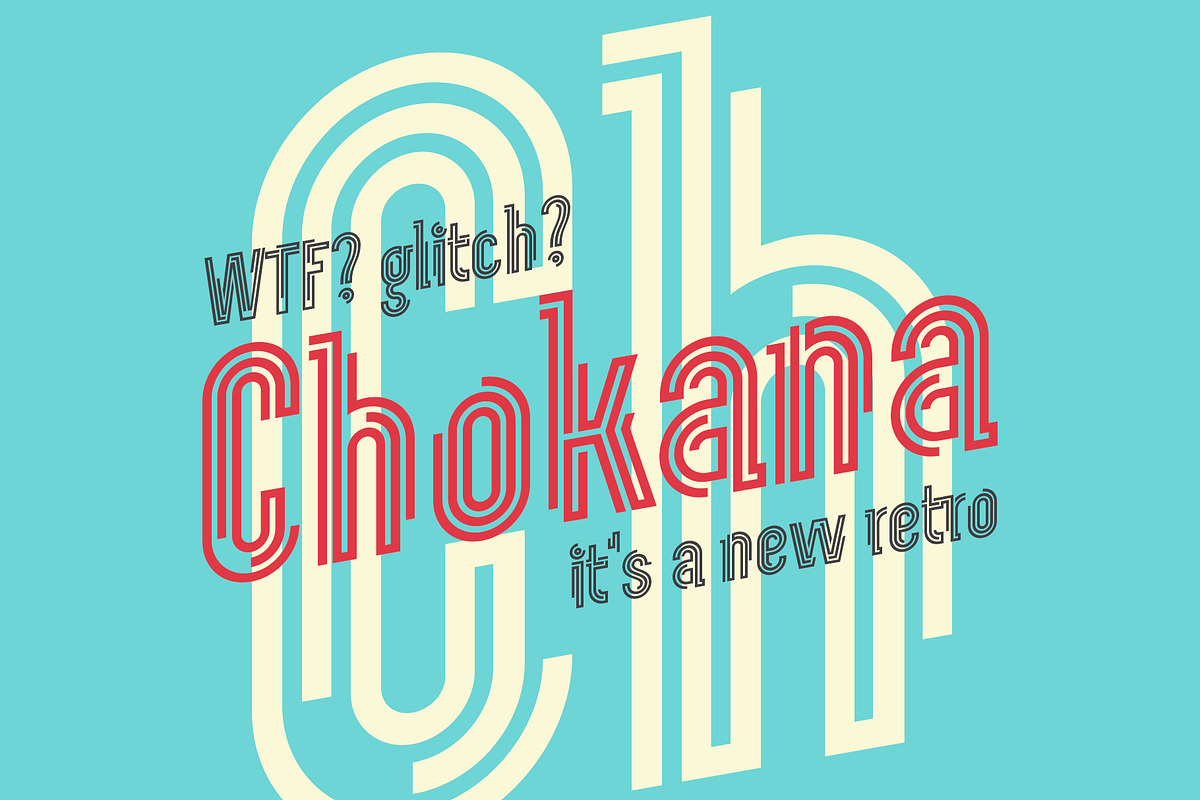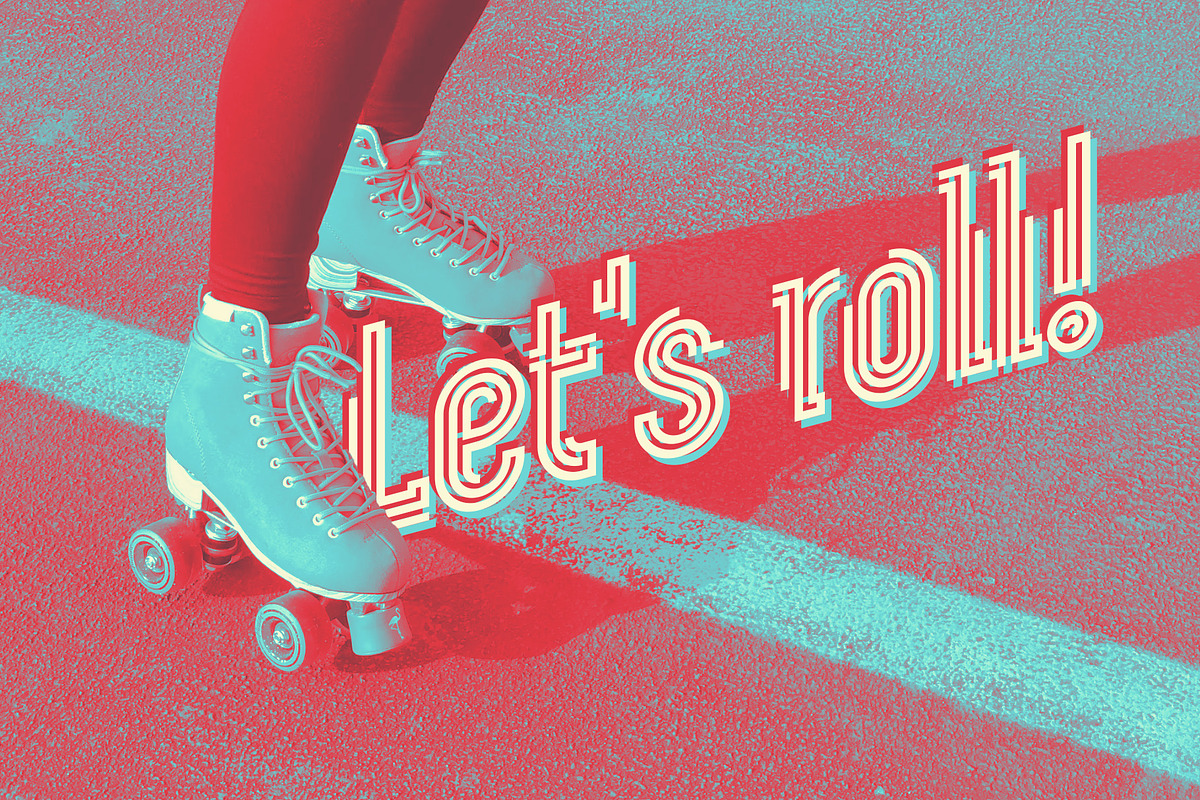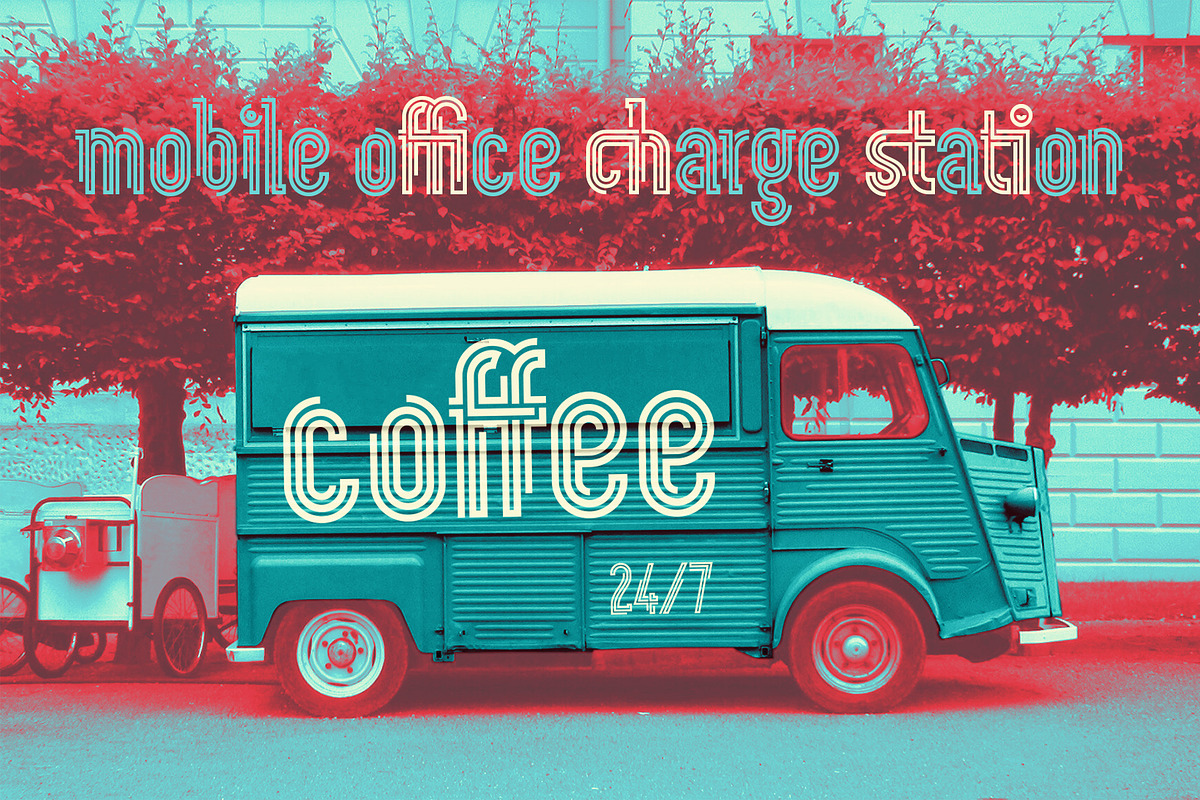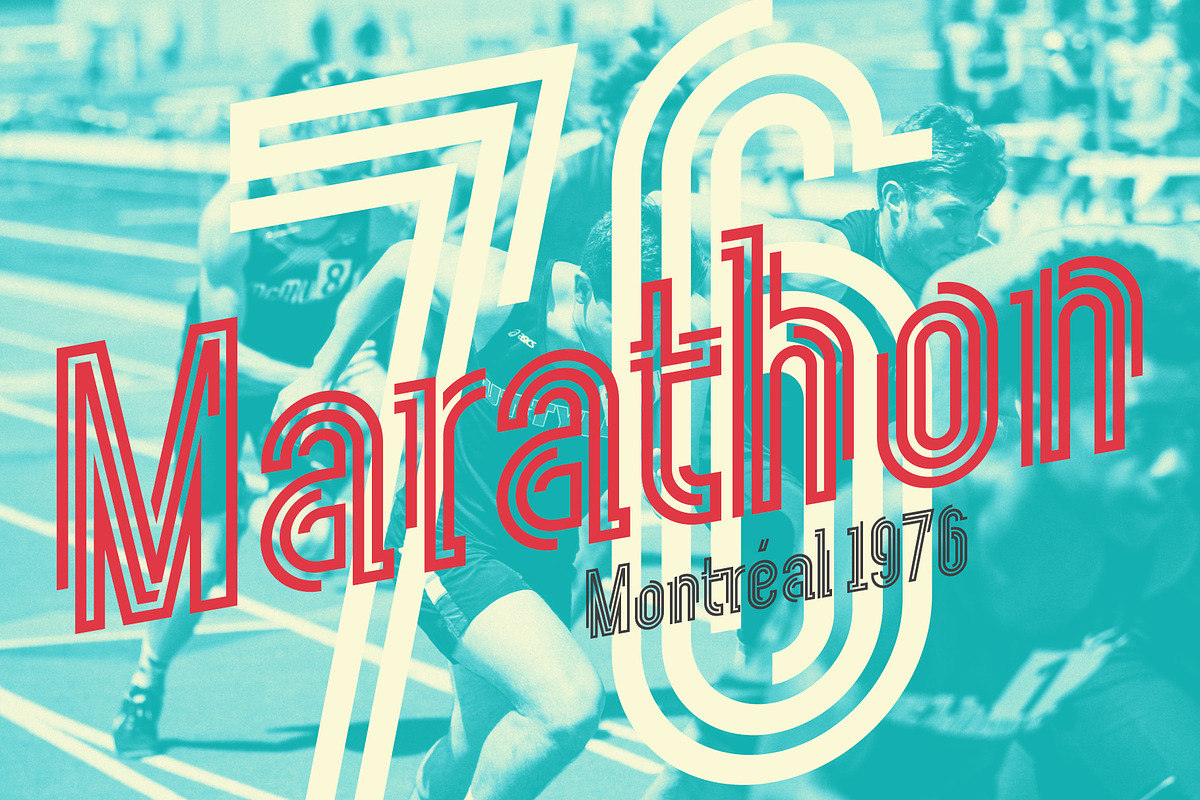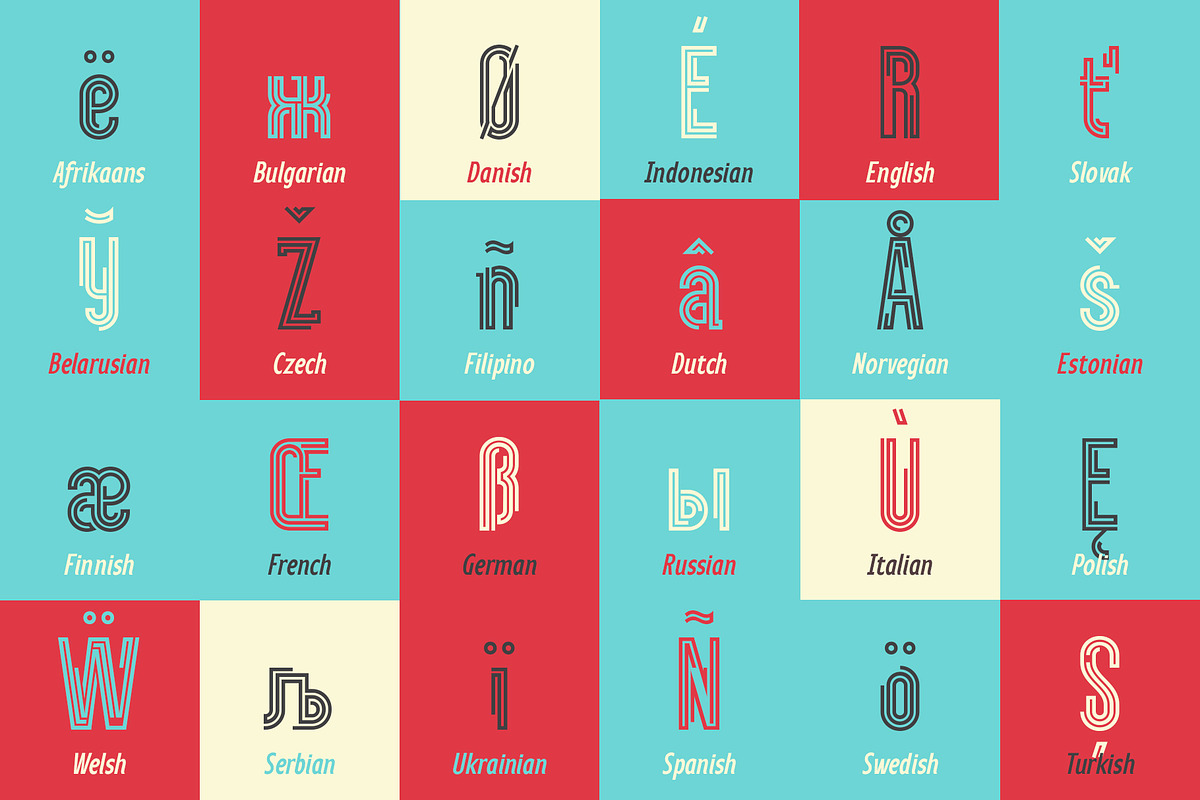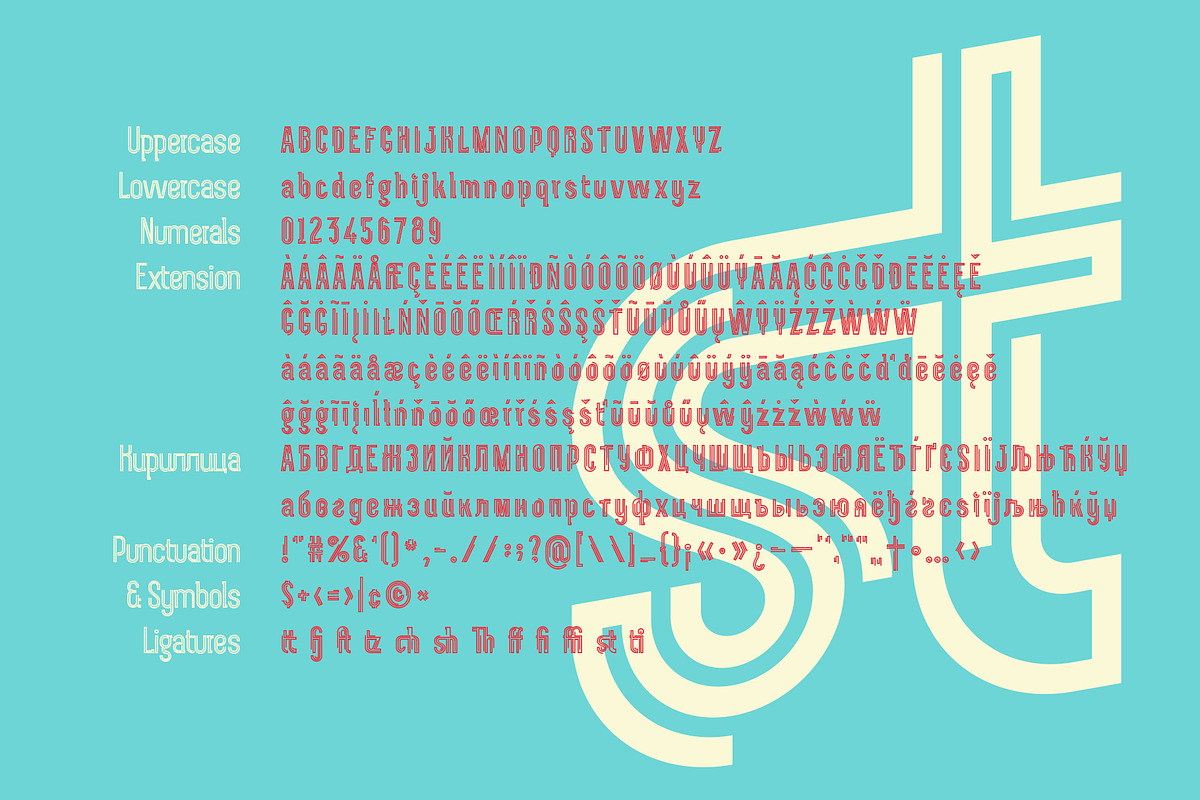
Chokana Glitch
Introducing Chokana Glitch, a nostalgic multi-line font inspired by the 70's aesthetic.
Font looks amazing as alone words and as full text blocks. Also it good for bright captions and unforgettable logos. This font could be the perfect solution if you want to give a lovely retro touch to your designs.